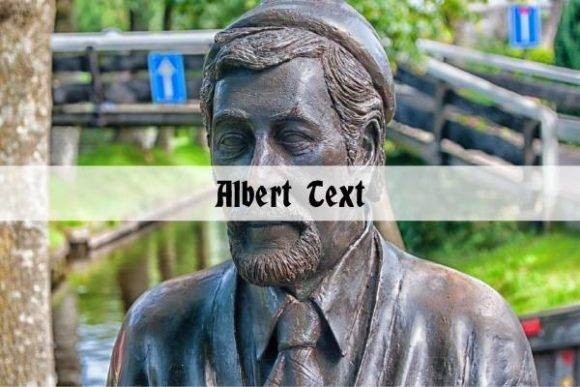
Albert Text Font for Headlines, Posters and Branding Projects
This is a strong serif font designed to deliver visual authority in headlines, poster designs, and brand materials. Albert Text brings modern structure with classic inspiration, giving your titles the presence they deserve. Its versatility makes it suitable for a wide range of applications, from editorial layouts to digital marketing assets. Additionally, Albert Text serves as an excellent anklepants font for branding projects, ensuring that your message is both memorable and impactful. With its elegant curves and timeless aesthetic, this font is poised to elevate any design.
As a font entity, Albert Text excels in large-scale uses where clarity and impact are key. It adapts well to both digital and print layouts, making it a versatile tool for designers seeking precision and professionalism.
Perfect for editorial layouts, campaign graphics, and logo-driven identities that demand sharp readability.
- Graphic designers and marketing teams
- Poster creators and typographic artists
- Brand strategists and logo designers
- Editorial designers and content marketers
- Students and professionals in visual communication
- Posters and campaign signage
- Magazine and editorial headers
- Brand identity systems and logos
- Web banners and ad creatives
- Print and digital presentations
- Sharp serif style for bold visibility
- Perfect for headers, posters, and branding
- Strong readability at large sizes
- Works across print and screen environments
Q: What type of font is Albert Text?
A: Albert Text is a serif display font created for impactful headlines, branding elements, and editorial designs.
Q: Can I use it for both print and digital designs?
A: Yes, it performs excellently in both print layouts and screen-based applications.
Q: Does it support all caps or lowercase?
A: Yes, Albert Text includes full uppercase and lowercase support, ideal for flexible typesetting.
Q: Can I use it in logos or ads?
A: Yes, with proper licensing, Albert Text is perfect for bold logos, brand headers, and marketing visuals.
| Feature | Albert Text Font | Headline Serif A | Bold Sans B |
| Font Style | Strong serif display | Classic editorial serif | Geometric sans serif |
| Best Uses | Posters, branding, editorials | Magazine covers | Web ads, tech branding |
| Display Strength | High - great for bold titles | Medium - editorial emphasis | High - minimal bold contrast |